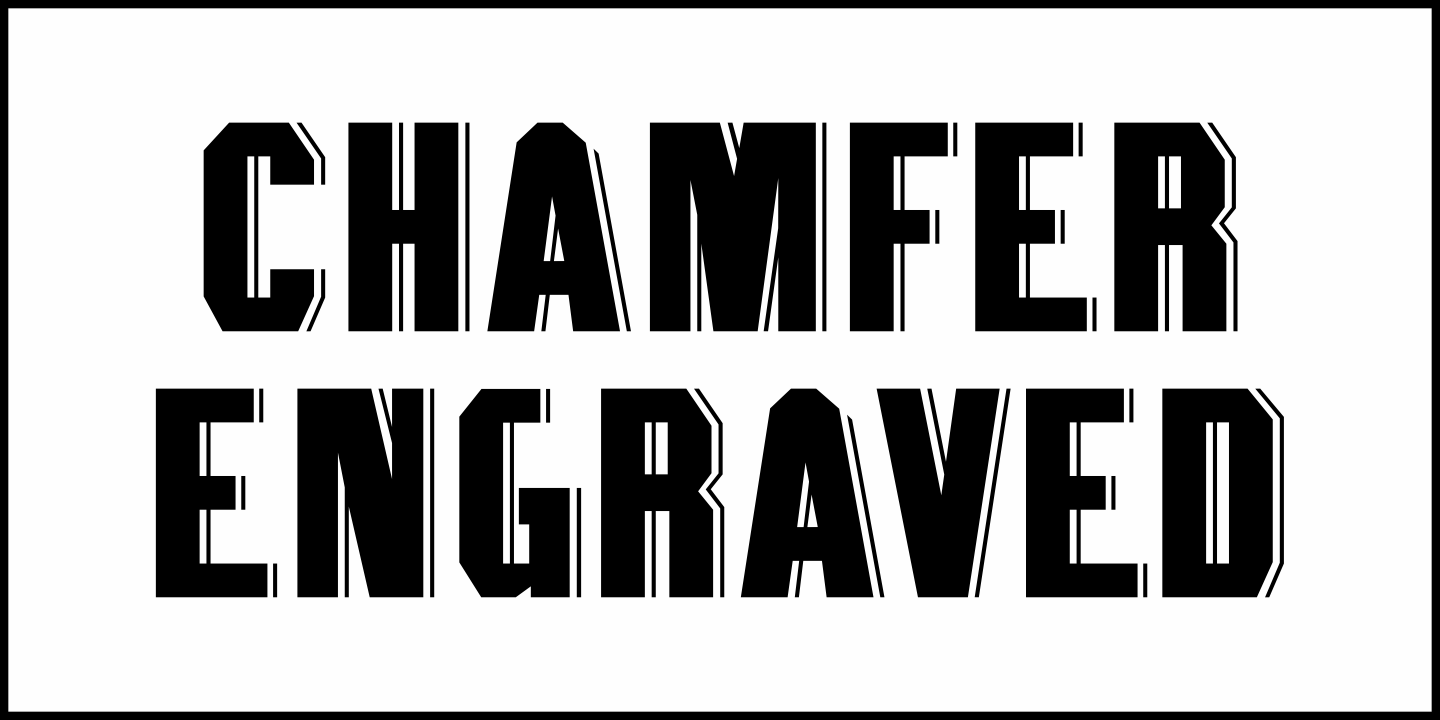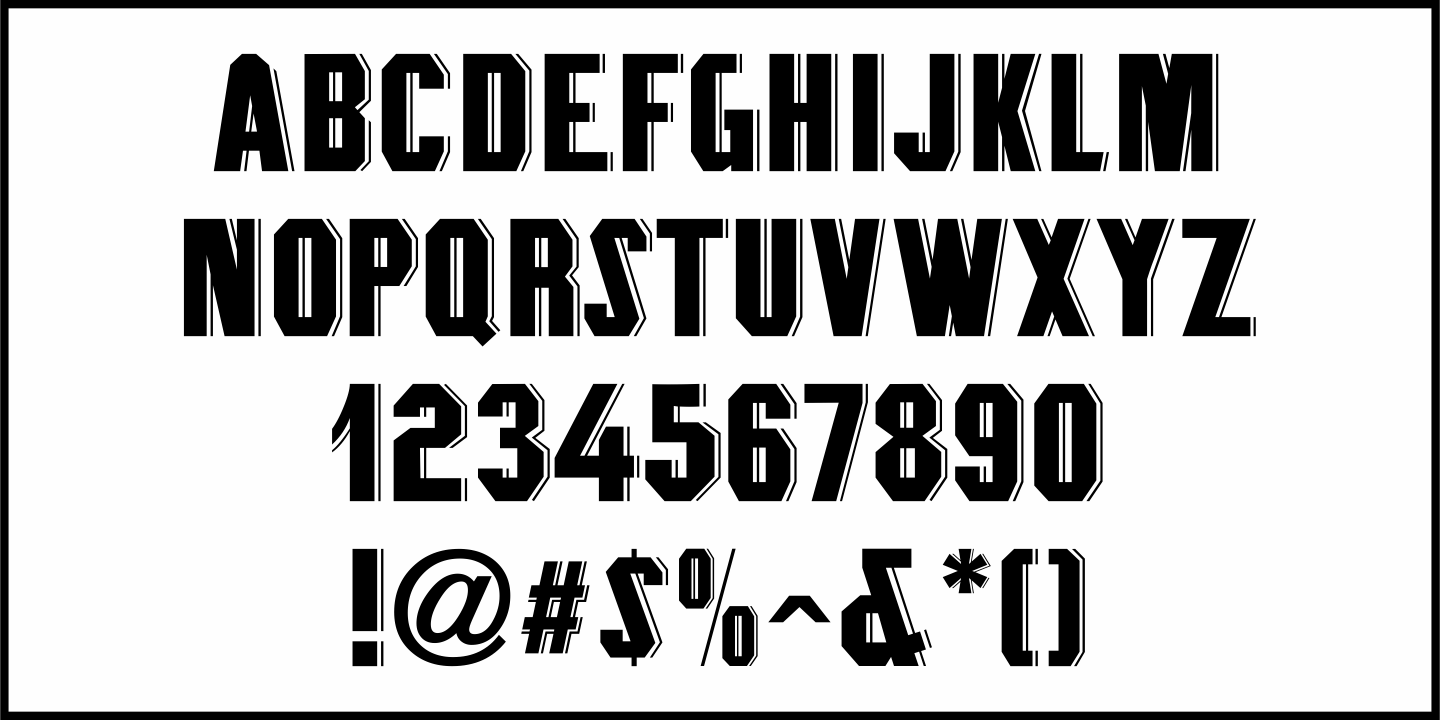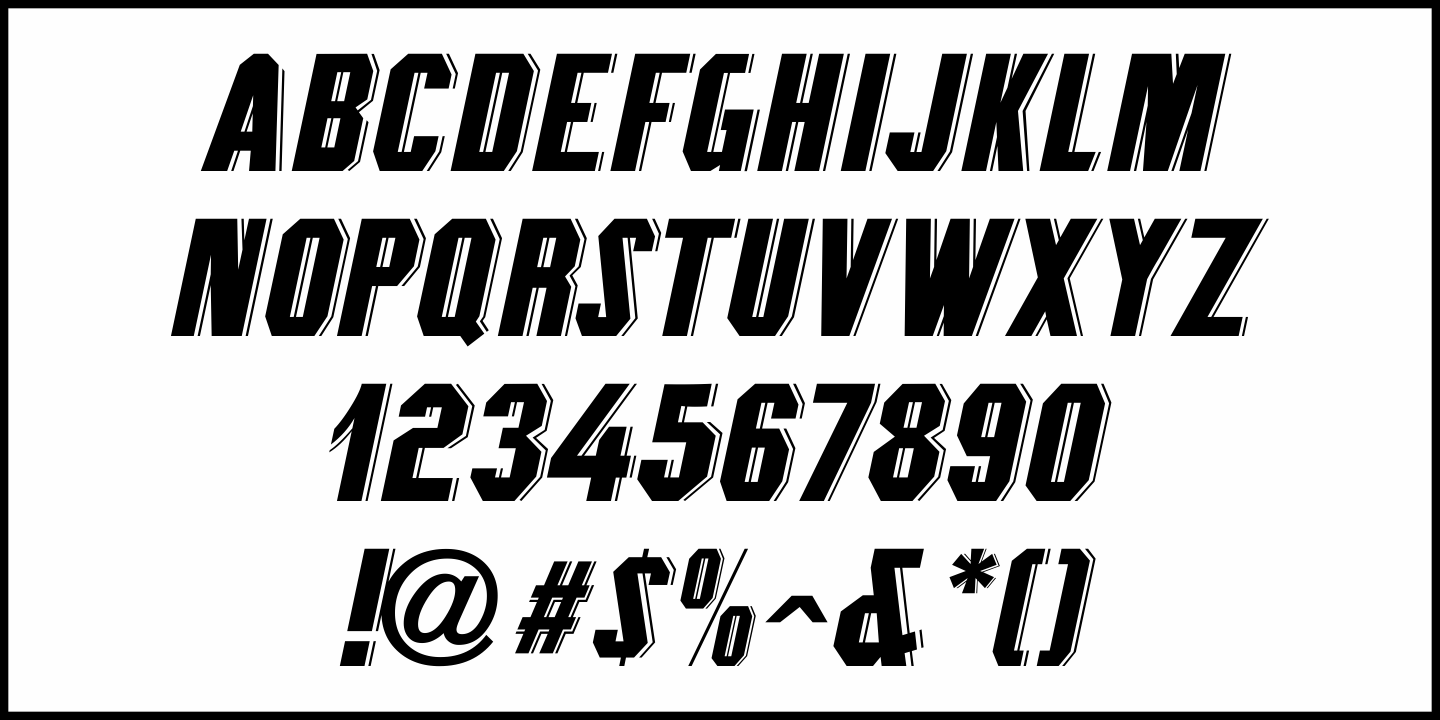
Chamfer Engraved
An eccentric chamfered sans serif wood type design with a right side engraving line from the 1800s was found within the pages of the Thorowgood foundry of London, England.
This font is now available as Chamfer Engraved JNL in regular and oblique versions.